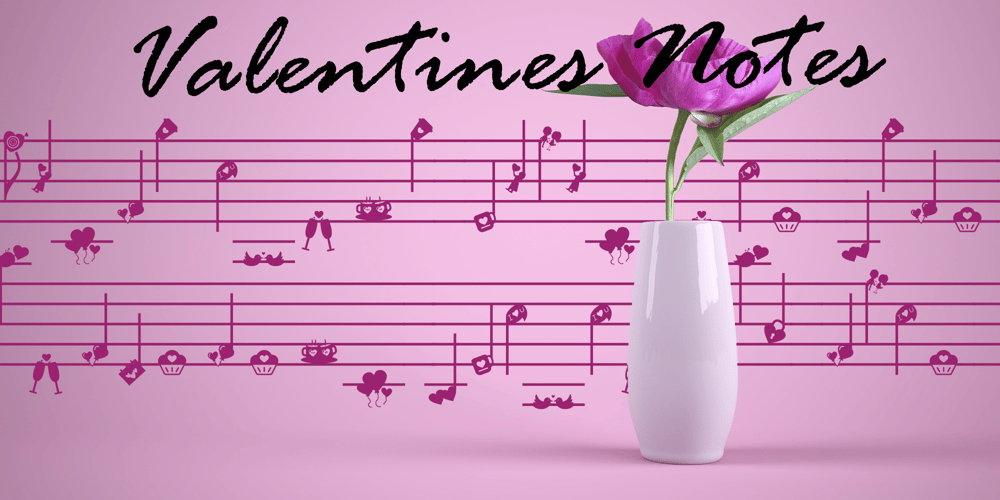
Valentines Notes Font Family was designed by Eyyüb Akça and published by PhoenixXWay. Valentines Notes contains 1 styles and family package options. This is our Valentine’s Day-themed font that weaves the romantic melodies of love songs into your designs. This unique typeface infuses the spirit of Valentine’s Day with the heartfelt emotions of music. Valentine’s Day Cards: Create heartfelt and visually stunning Valentine’s Day cards that sing with romance, making your loved ones feel cherished and special. Love Letters: Craft beautiful love letters that showcase the beauty of Valentines Notes, making your declarations of love even more touching and memorable. Event Invitations: Design enchanting invitations for romantic dinners, engagement parties, or weddings, setting the tone for a truly memorable celebration of love. Digital Expressions: Elevate your digital expressions of love with Valentine’s Day-themed social media posts, e-cards, and website elements that capture the essence of love in a unique and musical way. FunctionalAs far as we know, this font includes everything you would need to write a music sheet.